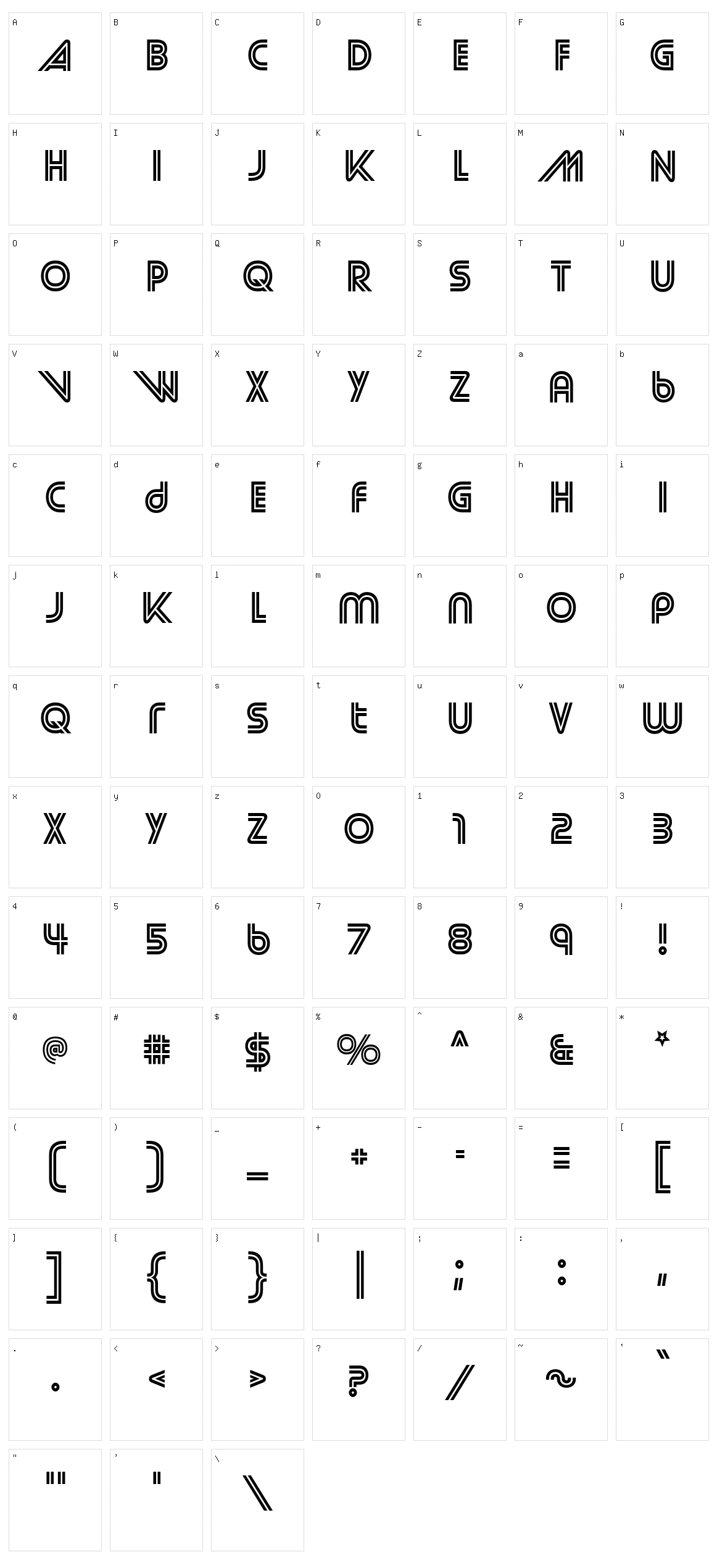
The free font Street Cred is carefully designed by Typodermic Fonts, showcasing a thoughtful balance of creativity and usability and falls under the Retro font style. When you download the ZIP file, it contains only 22.67 KB of font files, making it lightweight and quick to download. Please review the license details below to understand permitted usage and distribution rights. If license information is not available, we recommend using this font for personal projects only or contacting the author directly for commercial usage permissions.